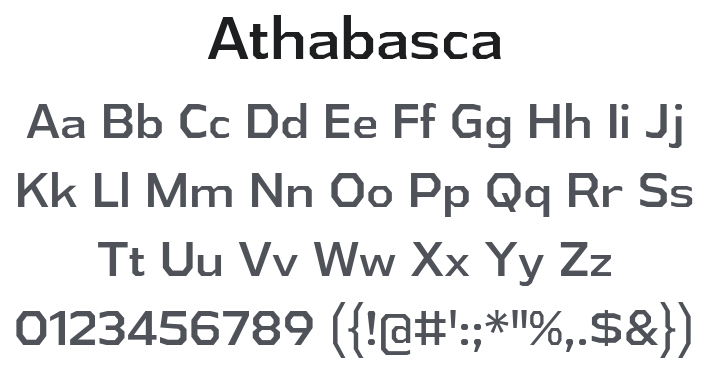
Athabasca Font Family
About Athabasca
Athabasca is a versatile angular sans-serif typeface with a serious, contemporary character. It comes in an extensive range of 6 weights, 3 widths, and italics. Smart OpenType features include automatic serifed capital I before lowercase L for better legibility, plus old-style numerals. Ideal for editorial design, corporate branding, UI text, and clean display use.